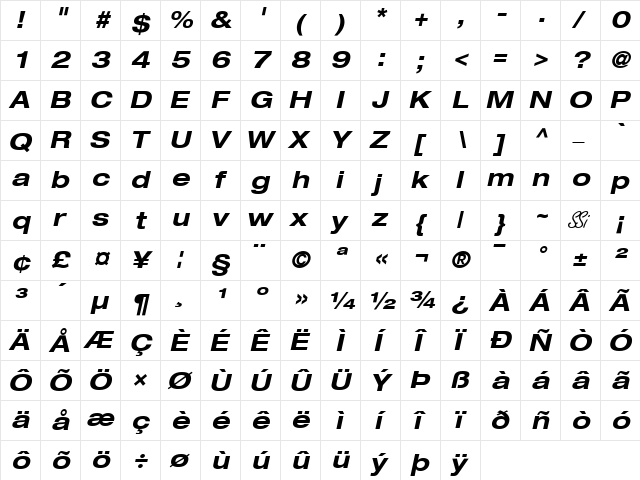
Context Reprise Expanded SSi Bold Expanded Italic Font Preview
Design Context for Context Reprise Expanded SSi Typeface
Context Reprise Expanded SSi takes a measured approach to typography — its balanced proportions and neutral character make it a reliable workhorse for both digital and print work. The slanted form adds forward momentum and visual energy. Its bold stroke weight gives it real presence on the page.
Pro Tip: Try Context Reprise Expanded SSi for annotation and caption copy alongside an upright companion — the contrast in angle creates a dynamic but ordered typographic system.